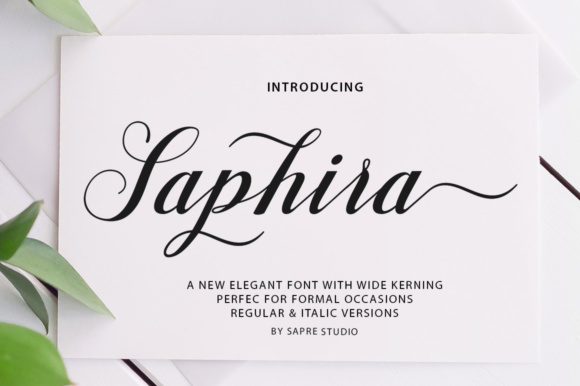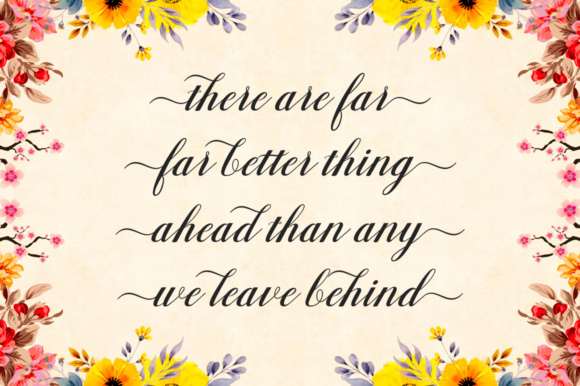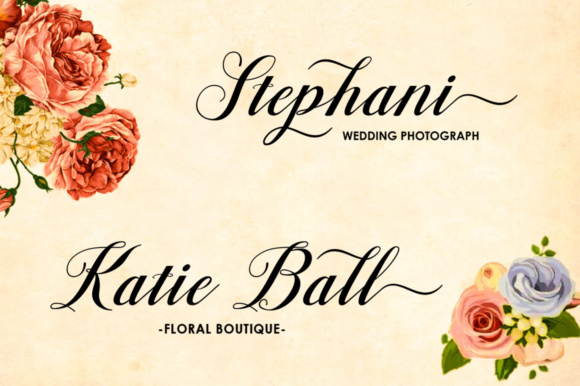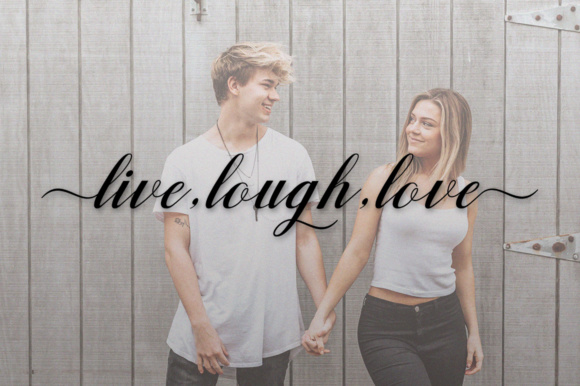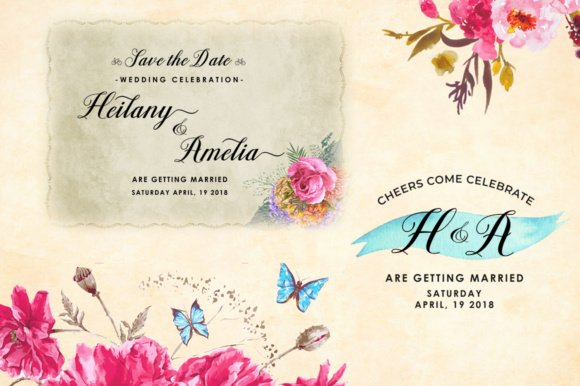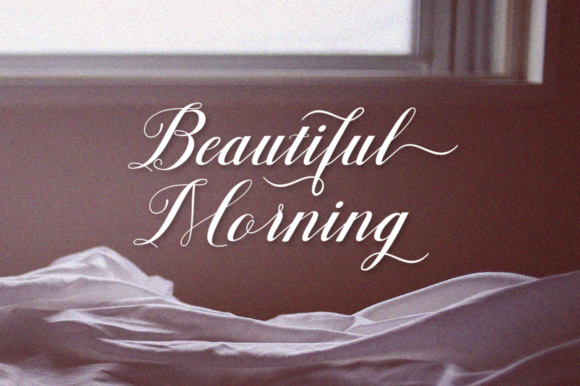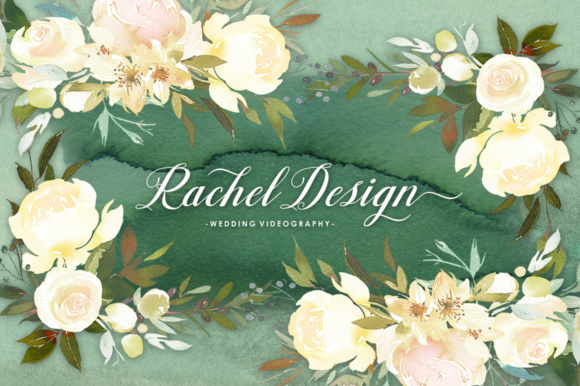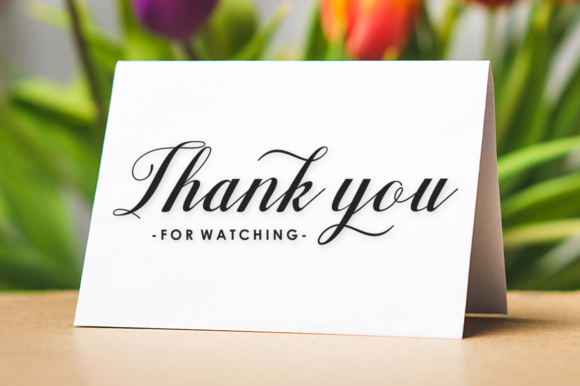
Saphira Script Font
About Saphira Script Font
The Saphira is a new modern script font. It has an irregular baseline and a trendy and feminine style which makes it perfect for wedding invitations, thank you cards, quotes, logos, and much more!